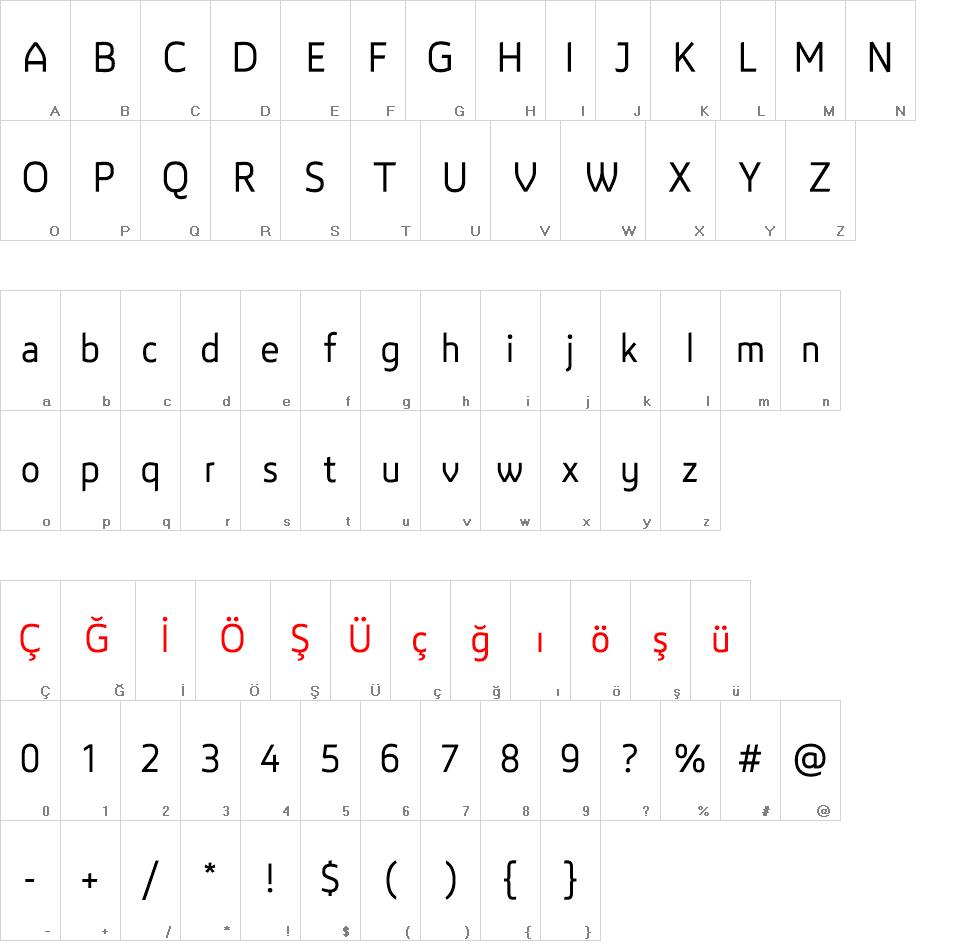
This font comes with two rounded variations. One is the semi-rounded, and the other is the completely rounded variation. In other words, Reponse is a typeface to represent sleekness and a futuristic example.